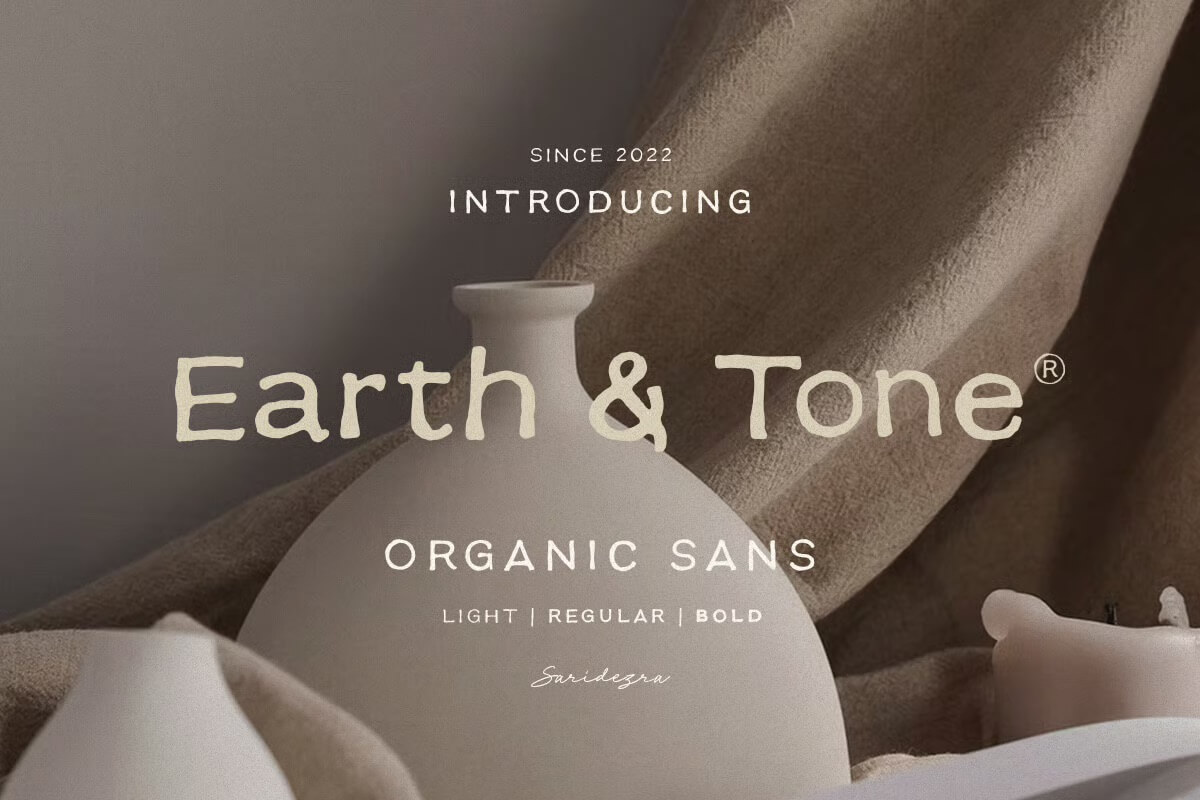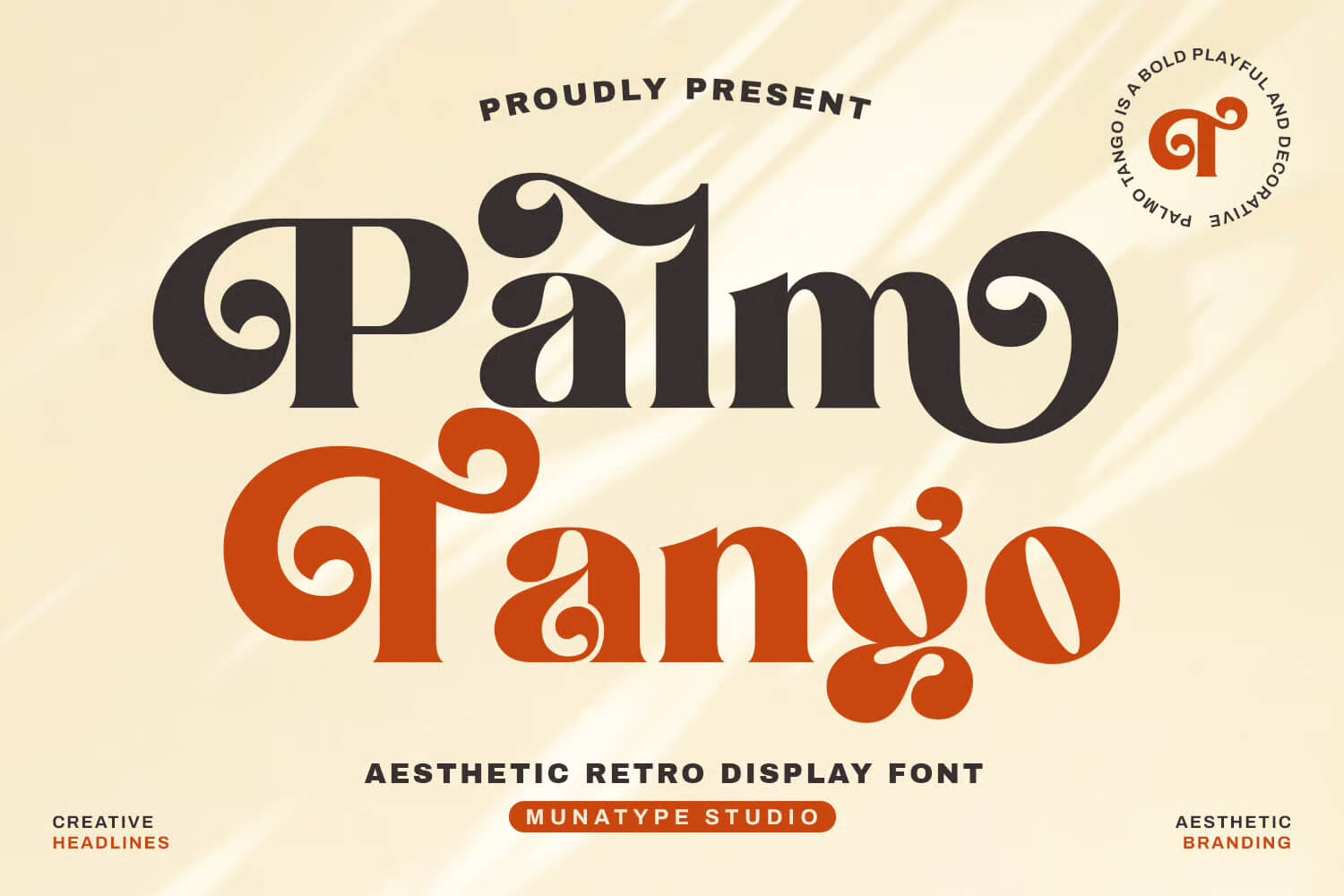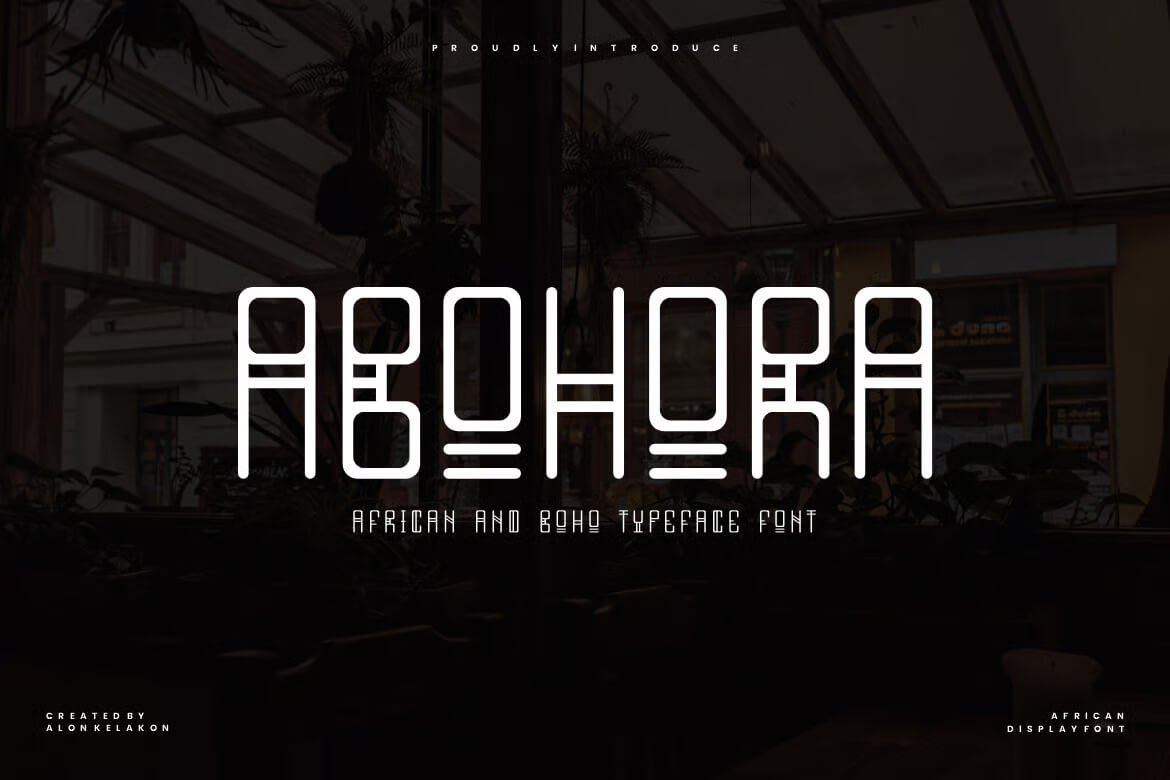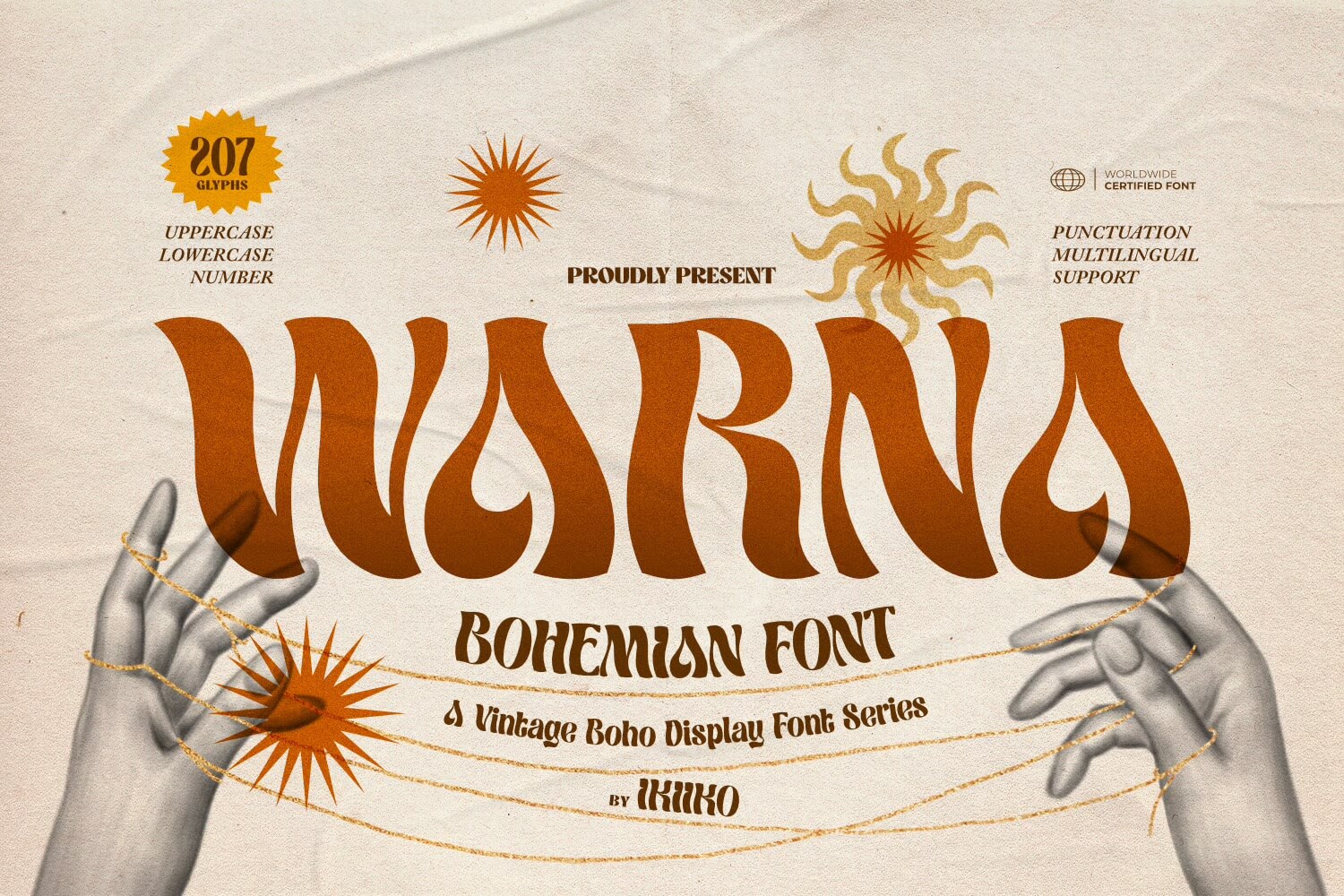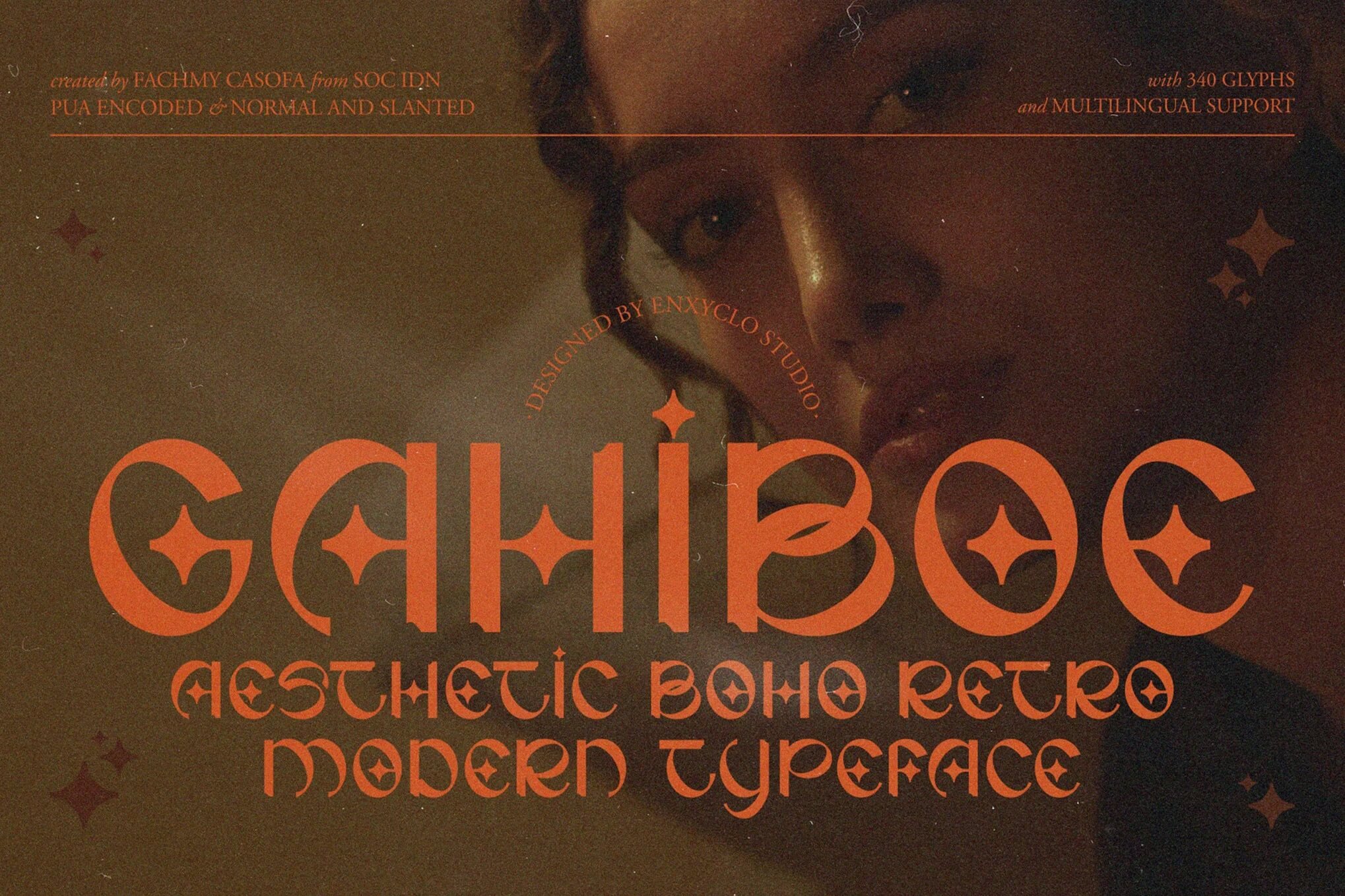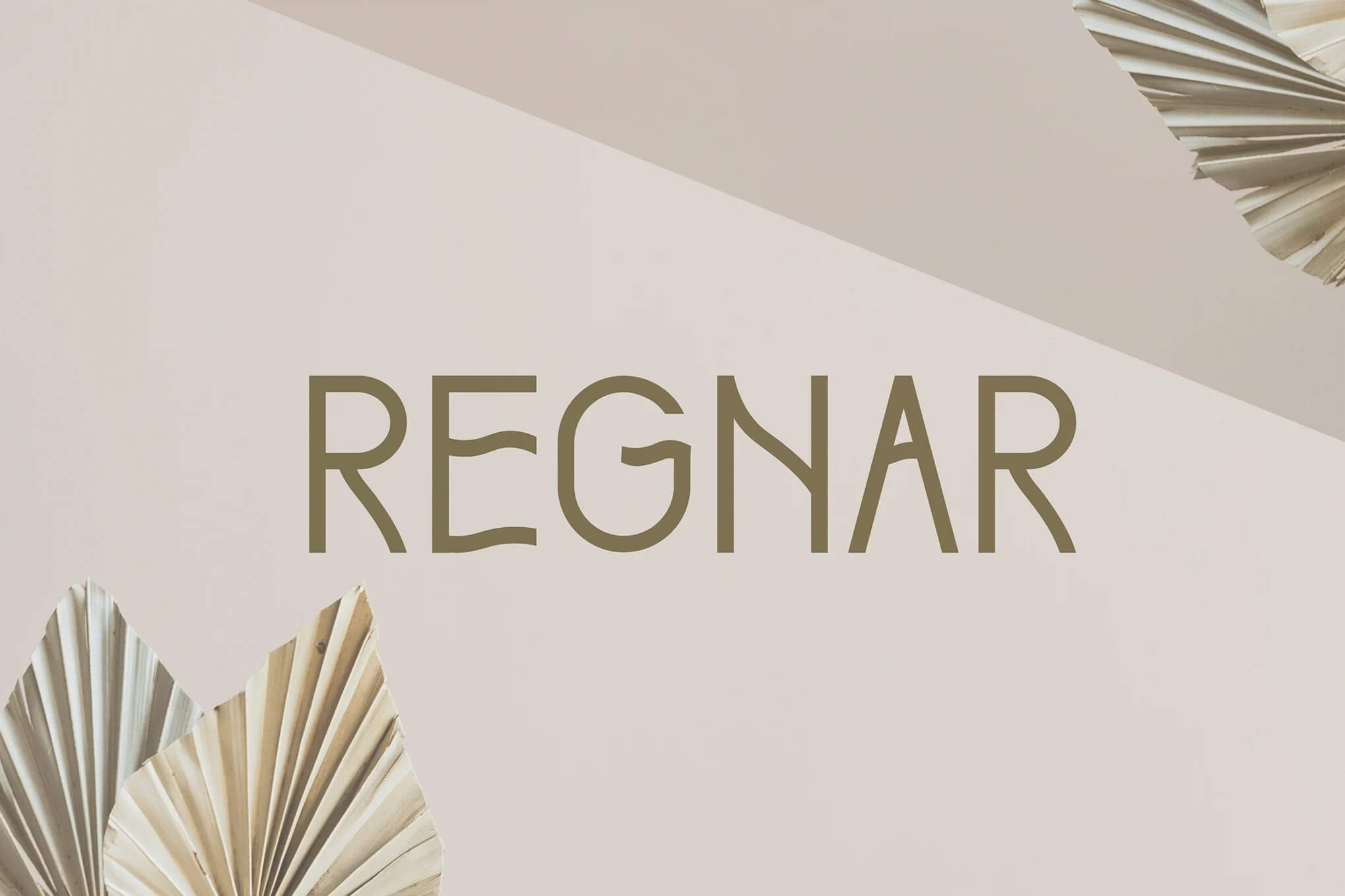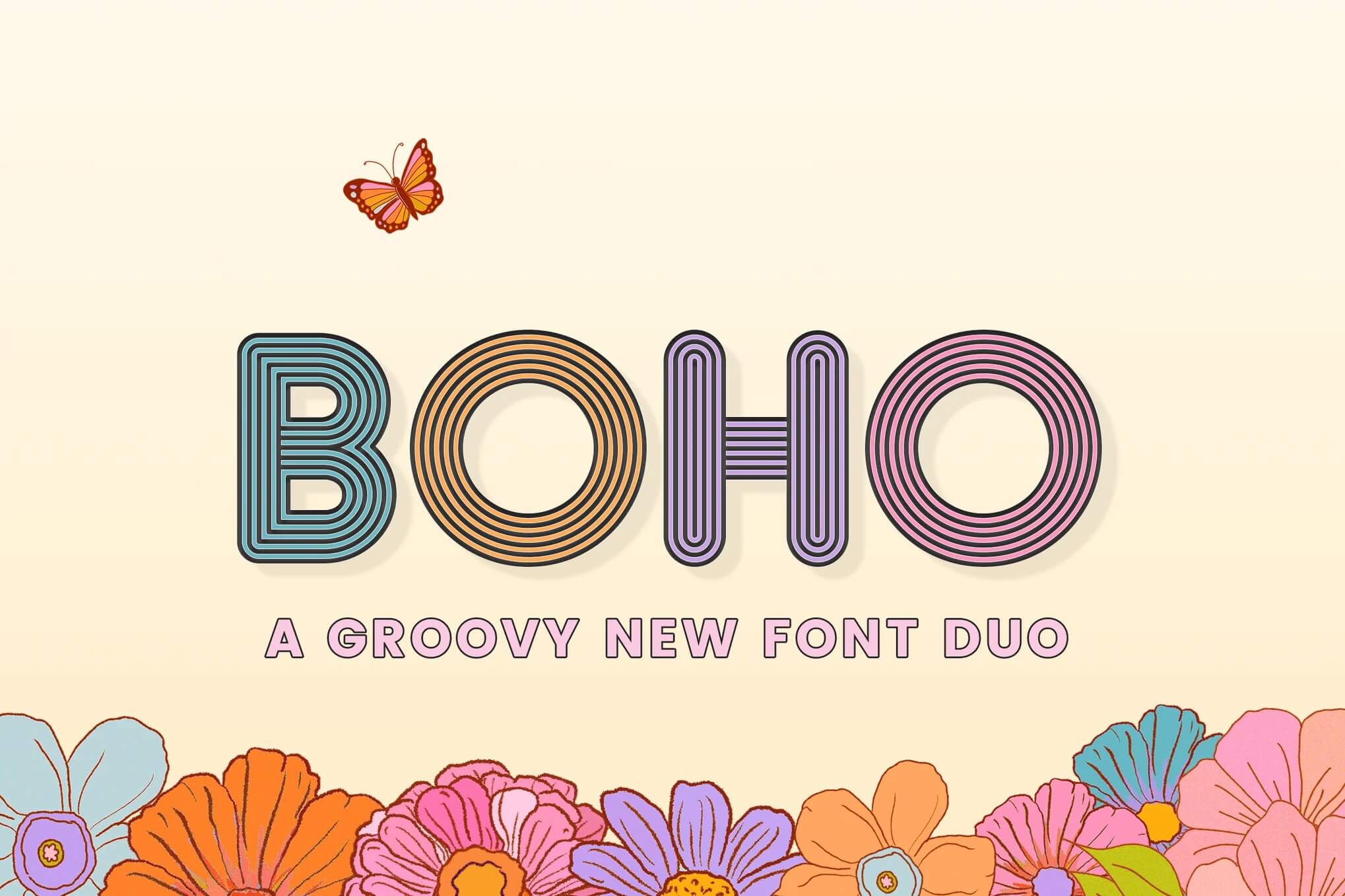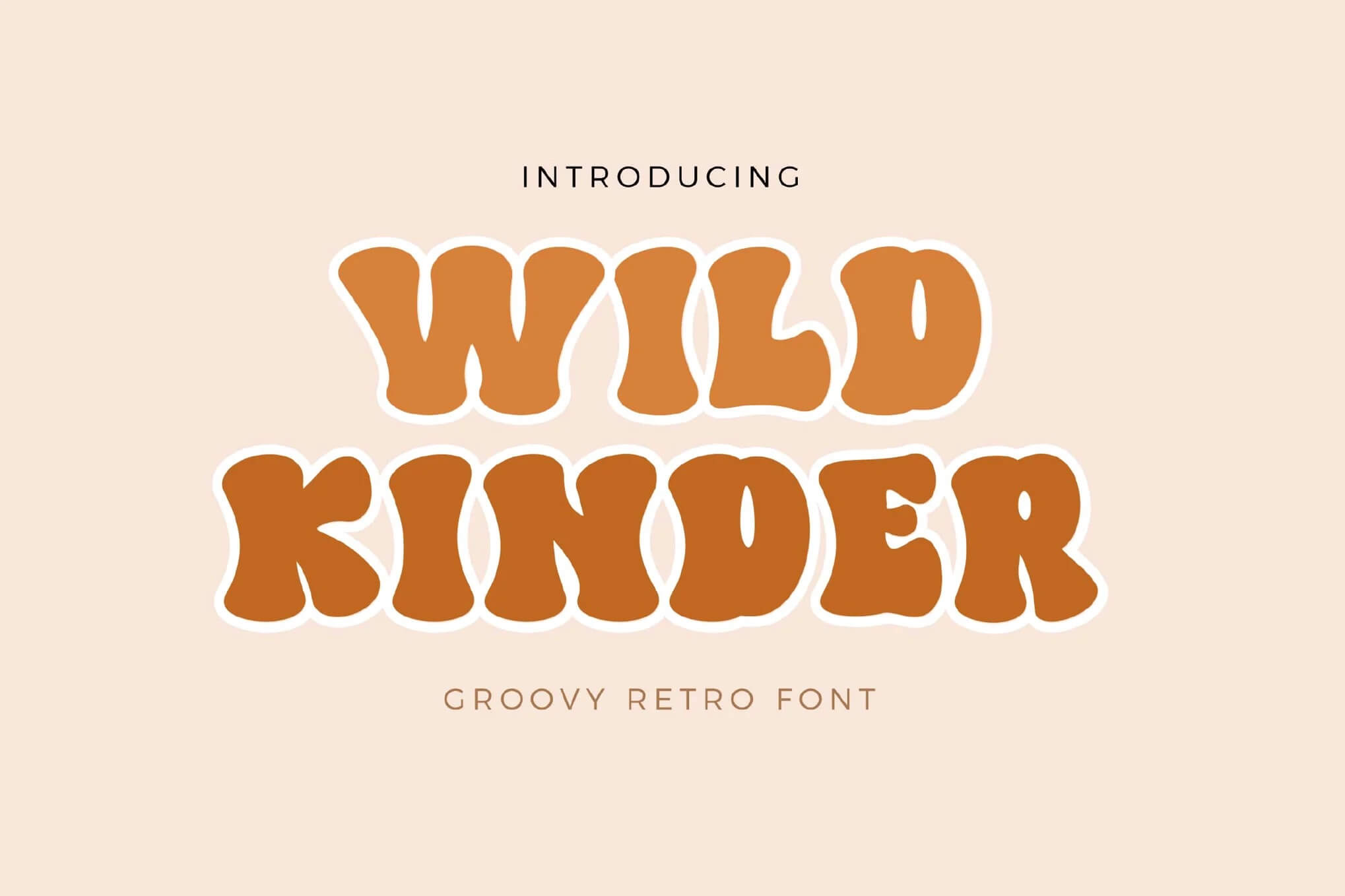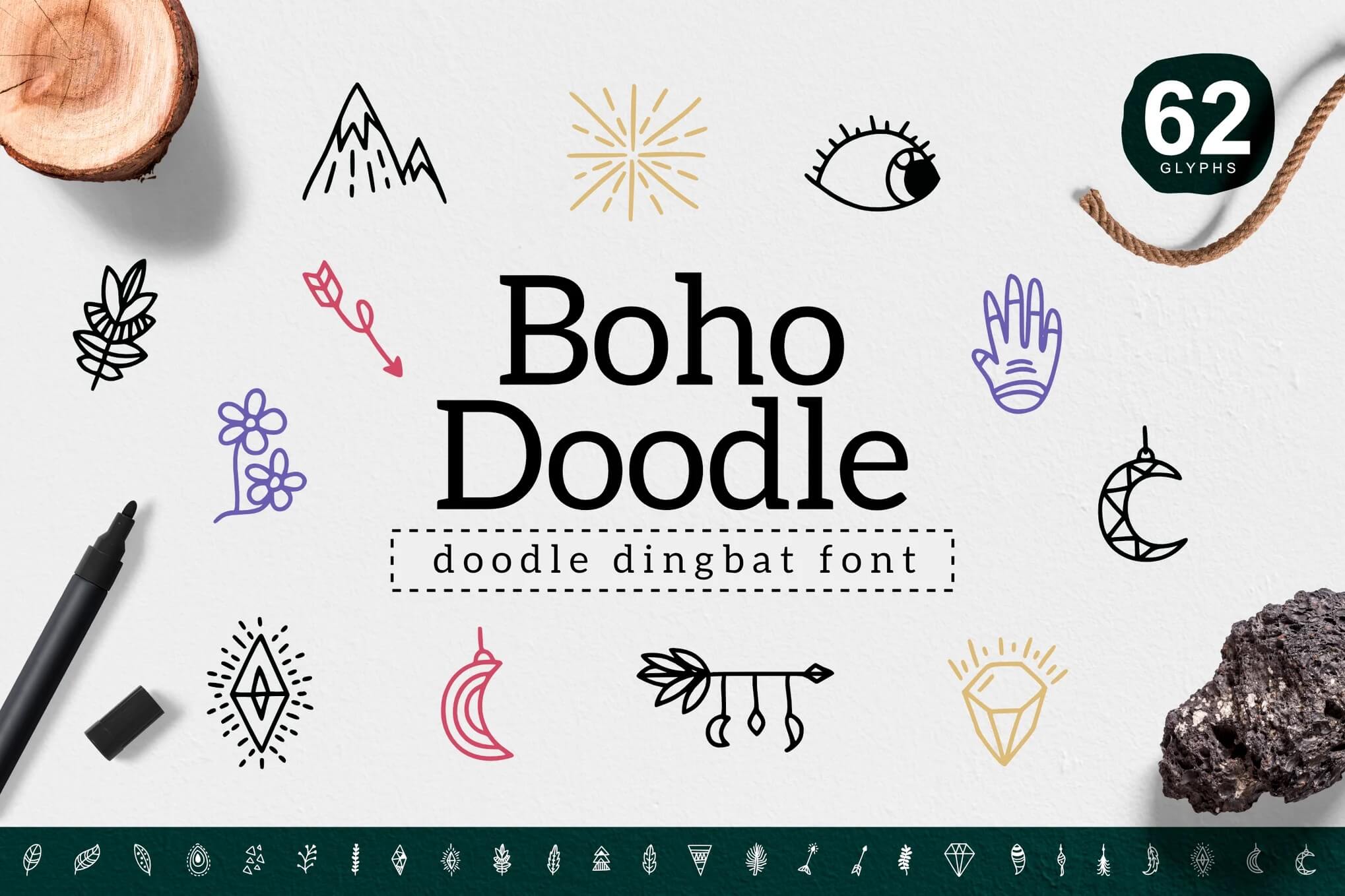
17+ Earthy Boho Fonts
Imagine staring at something you designed and feeling as if something were missing. Let me tell you, it is usually the font, especially with boho projects.
The perfect boho font can immediately change the atmosphere, add warmth, and make your design feel on purpose rather than generic.
In this article, I will take you through all of the best-known boho fonts, how to get hold of them for yourself, and what kind of font you should use with just the right design or logo.
Text reads "17+ Earthy Boho Fonts" with dried plants and fabric around. Earthy, natural theme highlighting typography with bohemian aesthetics.
If you want to feel artsy, modern and relaxed without looking sloppy or out of date, then these are well worth reading!
Top Earthy Boho Fonts You Should Use
Earth Tone – Organic Sans Family
Text promoting the "Earth & Tone" font, featuring neutral beige tones with ceramic vases. Font styles include Light, Regular, and Bold.
Earth Tone is a beautifully handcrafted sans serif family that brings natural, organic vibes to your designs.
It comes in three weights (Light, Regular, Bold) and works perfectly for branding, logos, quotes, or any project needing that authentic handmade touch. Plus, it supports multilingual characters, numbers, and symbols.
Mailune – Bold Brush Script Font
Rustic picnic setup with fruits, wheat, and bottles on a blanket in a field. Overlayed text introduces a bold brush script font.
Mailune is a gorgeous bold brush script that feels like handwritten sunshine. It’s got those sweeping, textured strokes that just scream cozy summer vibes and romantic branding. Perfect if you want something with rustic charm but still feels modern and elegant.
Bumiku
Text "the BUMIKU 2025" overlays an image of tall grass, promoting a bonus of 20+ Earthday cliparts.
Bumiku is this gorgeous handwritten font that feels like nature itself wrote it. The soft, organic strokes give off major earthy vibes, perfect for eco brands, journals, or anything that needs that warm, personal touch. Plus it comes with bonus Earth Day clipart!
Palm Tango – Beauty Logo Font
Retro display font advertisement titled "Palmo Tango" with bold, playful design by Munatype Studio on a beige background.
Palm Tango brings that gorgeous retro vibe with its bold, curvy serif letters that feel both nostalgic and fresh.
The playful organic shapes give off major sunny day energy, making it perfect for anything from wedding invites to seasonal designs that need personality and warmth without losing readability.
Abohora – African and Boho Display Typeface
Promotional image showcasing "ABOHORA," an African and Boho-inspired typeface font, against a subtle indoor plant and wooden structure background.
Abohora mixes bold geometric shapes with boho flair to create a warm, eye catching display font.
It feels handcrafted yet modern, perfect for logos, posters, and social feeds where you want personality and cultural character without sacrificing readability.
Turkeyes – Bohemian Type
Vintage-style poster for Turkeyes Bohemian Typeface by Ikiiko, featuring floral illustrations and details on the font's multilingual and stylistic options.
Turkeyes feels like a sunlit road trip through the sixties and seventies, mixing playful retro curves with modern clarity.
It gives logos, posters and packaging a warm bohemian vibe while staying readable and versatile for both display headlines and branding.
Boho Floral Dingbat
The image showcases "Boho Floral" doodle dingbat font with colorful floral graphics, two butterflies, a pen, and a rustic wood slice.
Boho Floral Dingbat feels like a relaxed, hand drawn collection of floral symbols ready to charm logos, packaging, and craft projects.
It includes 62 doodle icons in TTF OTF and EOT formats, covers basic Latin characters, and has a warm, artisanal vibe.
Monthey – Bold Elegant Vintage Display
Promotional image featuring "Monthey" bold elegant serif font by Qweera Studio. The orange text overlays a person in a gray shirt with dark background.
Monthey feels like a confident, classy voice for your brand. Its bold serif shapes bring authority, while graceful italics and stylish alternates add refined personality.
Perfect for luxury packaging, editorial headlines, and logos that need a strong, elegant presence.
Warna – Bohemian Font
Vintage-style typography poster featuring the "Warna" bohemian font with decorative elements, including illustrated hands and sun motifs, offering multilingual support.
Warna feels like a joyful throwback with a playful handmade vibe. It’s retro and free spirited yet surprisingly readable, perfect for boho branding, posters, and fashion projects.
Use it when you want a warm, creative look that doesn’t take itself too seriously.
Brown-toned image featuring a person's face, showcasing "Gahiboe," an aesthetic boho retro modern typeface with decorative text and star accents.
Fonts shape not only what your brand looks like but also how it is perceived.